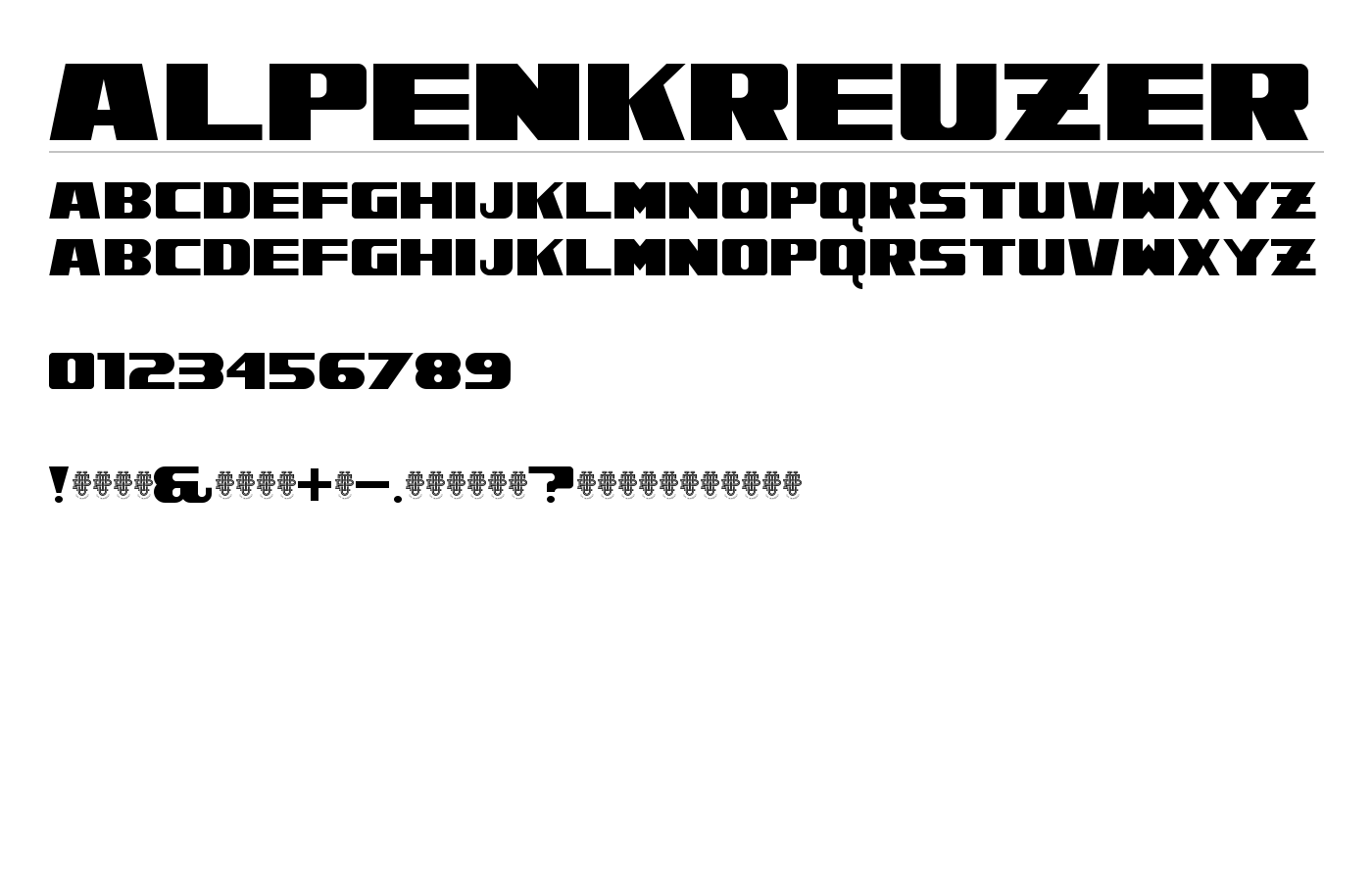
Alpenkreuzer is a bold, heavy sans serif font with a compact, wide stance and strong geometric shapes. Its thick strokes and sharp, squared edges give it a powerful, industrial feel, making it ideal for impactful headlines, logos, and display purposes where a commanding presence is needed. This font works especially well for brands seeking a modern, sturdy, and confident aesthetic.
Alpenkreuzer Font
About Alpenkreuzer Font
| Font family | Alpenkreuzer Font |
| Designer | Tup Wanders |